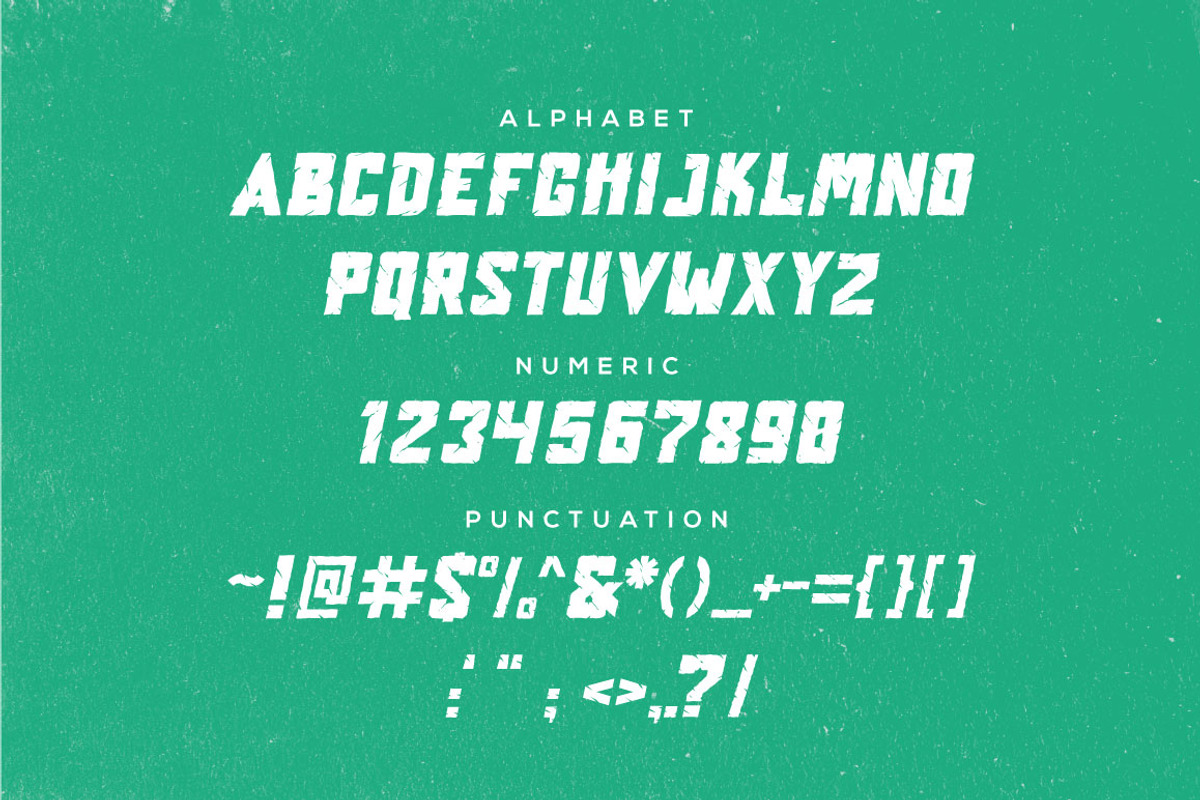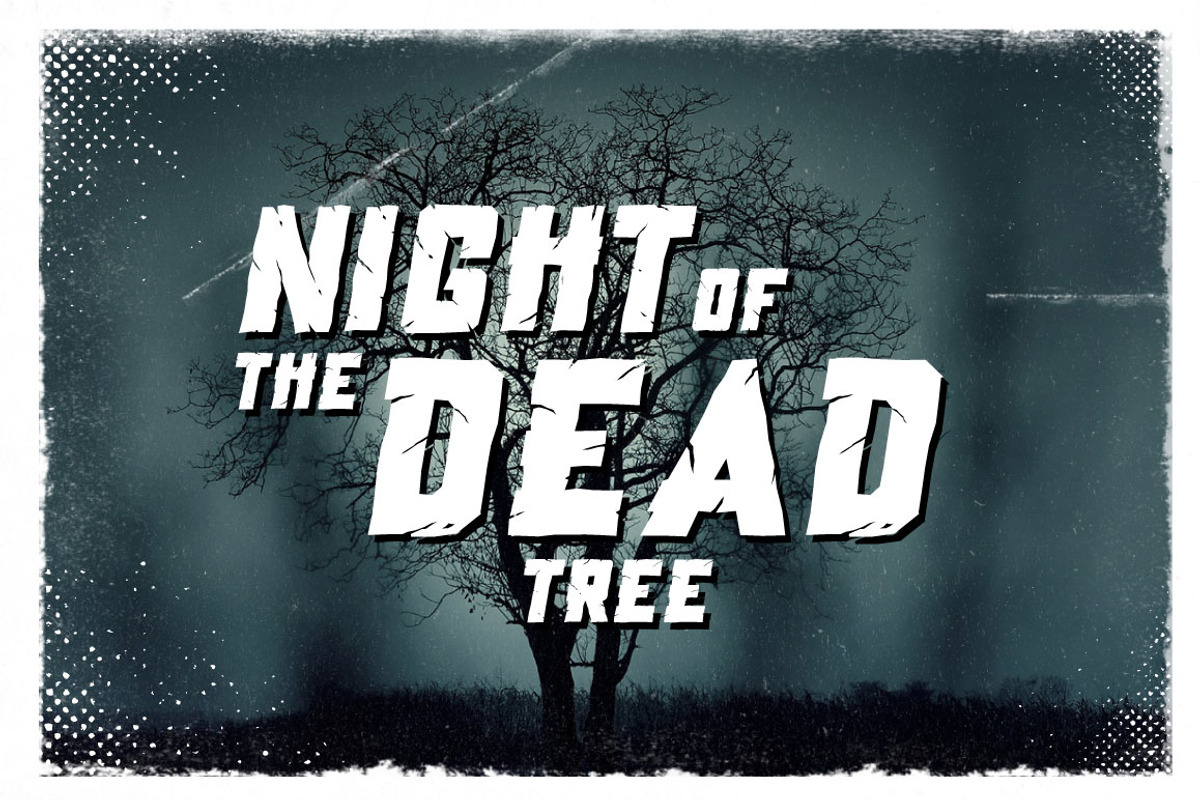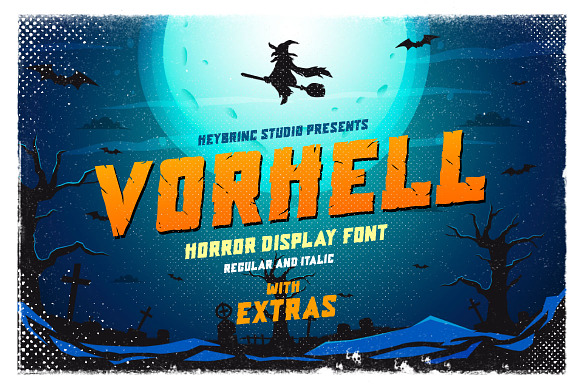
Vorhell Horror Font
Introducing new all caps display font that perfect for creating Halloween, Horror, Thriller theme projects. Inspired by classic Horror and Thriller movie posters. You can make a logo, quotes, poster, flyer, apparel, greeting cards, invitations using this font. Let's bring back vintage Horror vibes into your designs.
Why Vorhell Horror Font is worth a look
Vorhell Horror Font by Heybrinc Studio fits naturally into Branding, posters, packaging, typography.